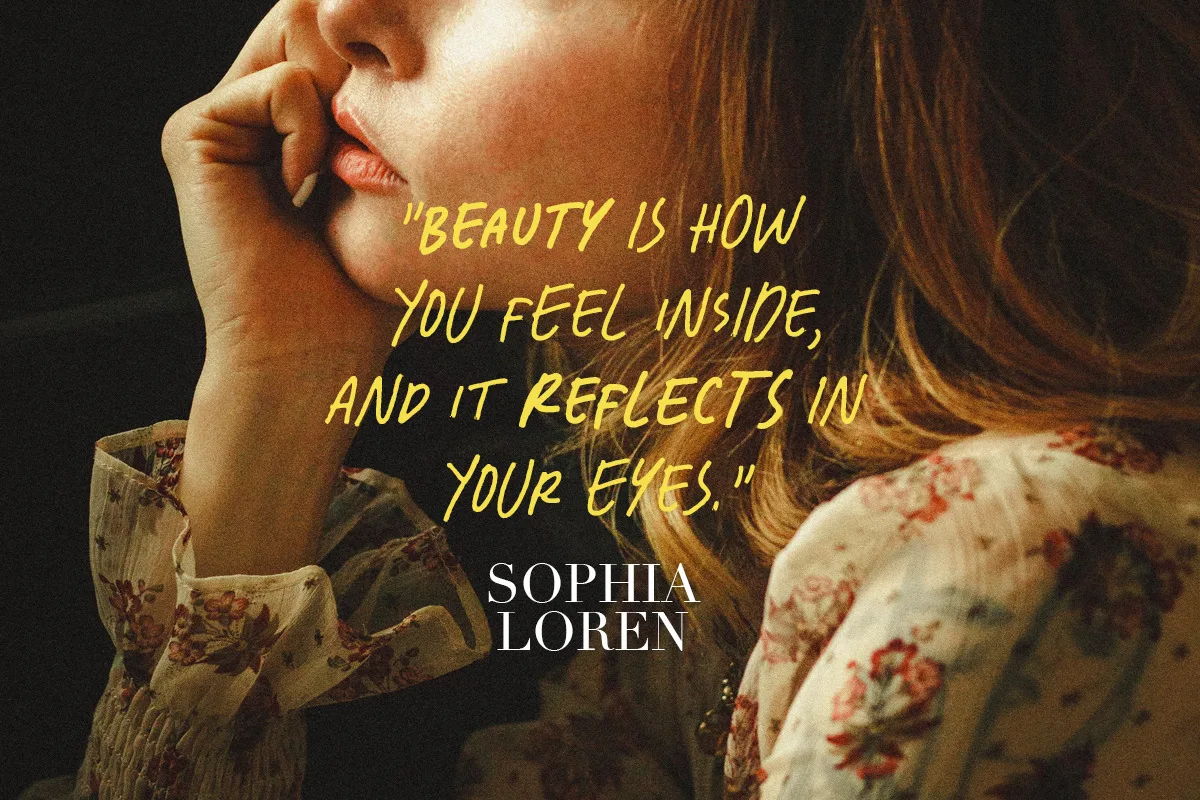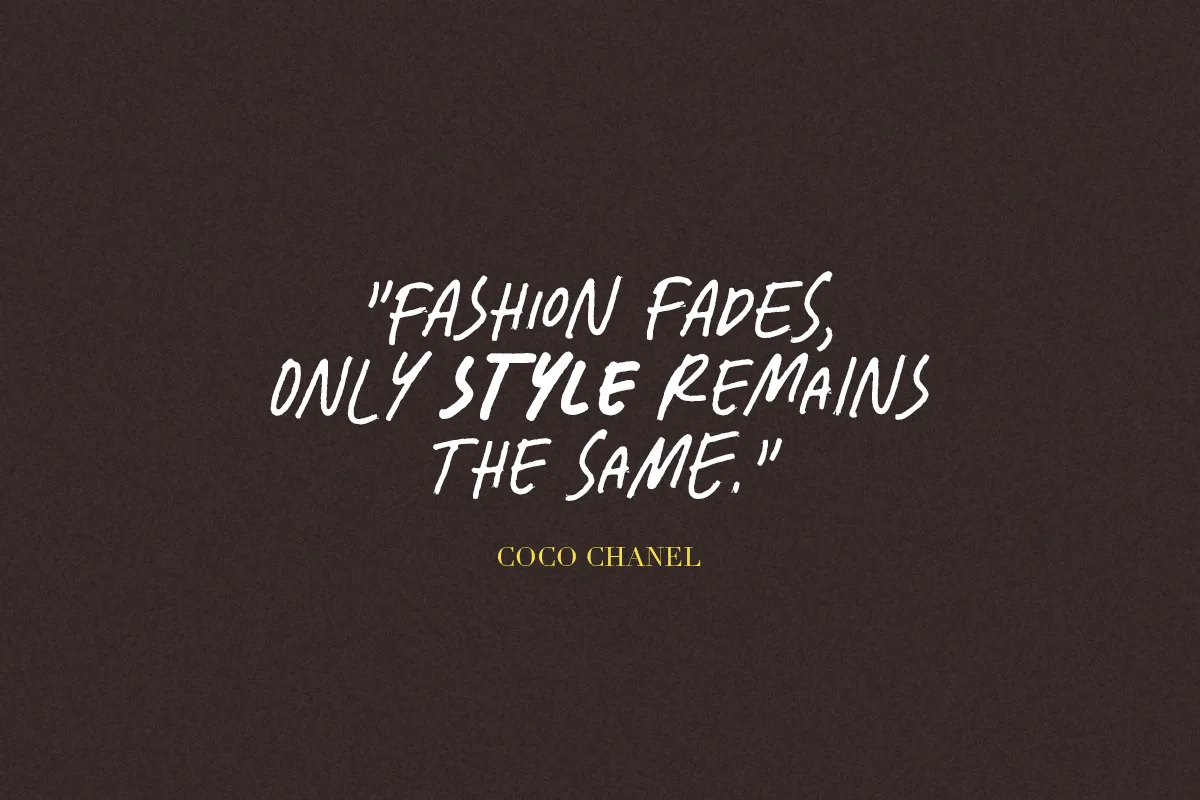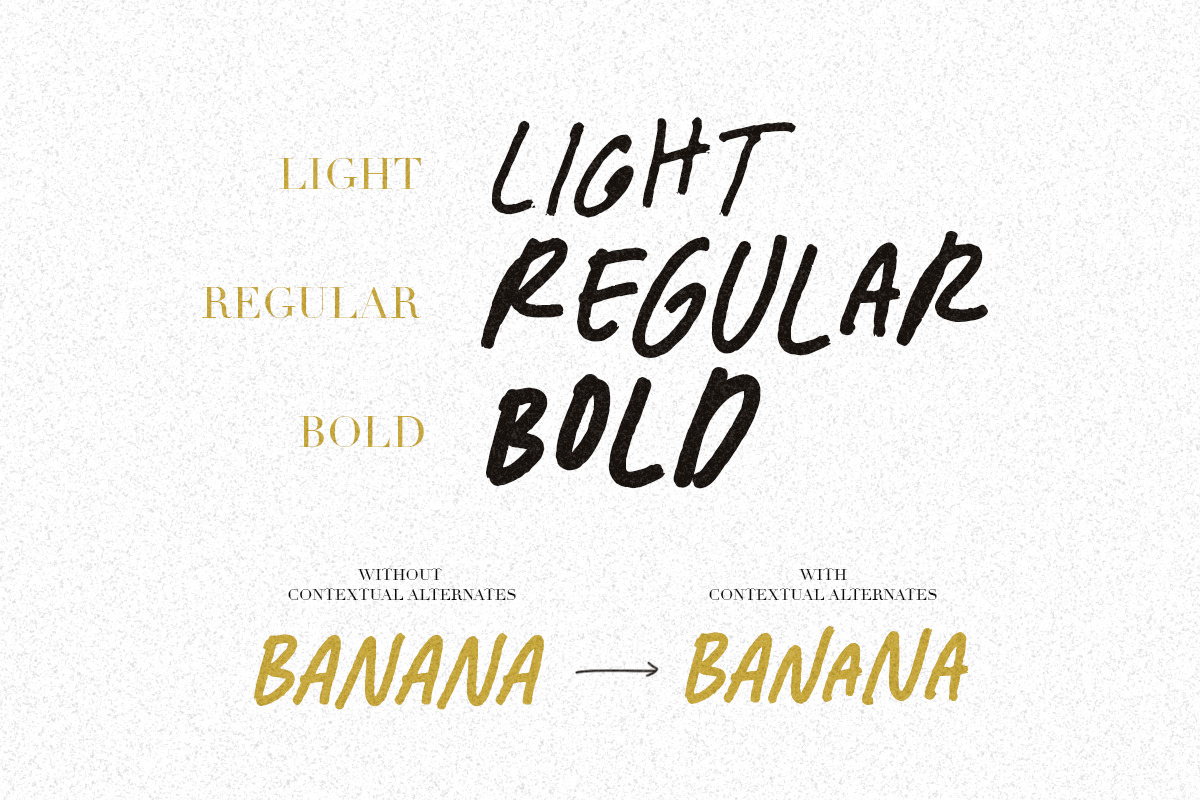
Quick Writers is an organic handwritten typeface. The natural flow makes this font look like real handwriting instead of typing a font. This font is also suitable to be applied especially in logos, and the other various formal forms such as invitations, labels, logos, magazines, books, greeting / wedding cards, packaging, fashion, make up, stationery, novels, labels or any type of advertising purpose.
Features :
- Uppercase & lowercase
- Numbers and punctuation
- Alternates & Ligatures
- Multilingual
- PUA encoded